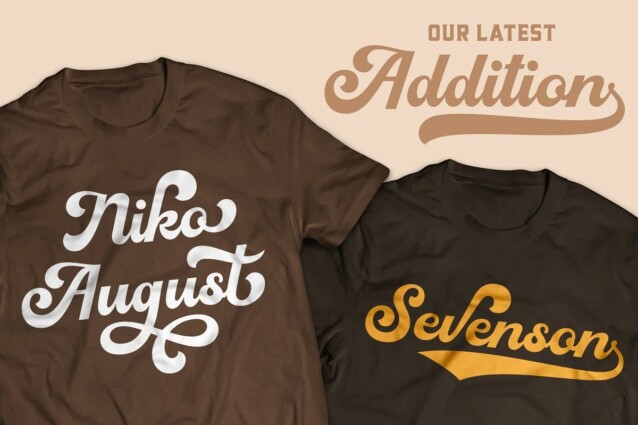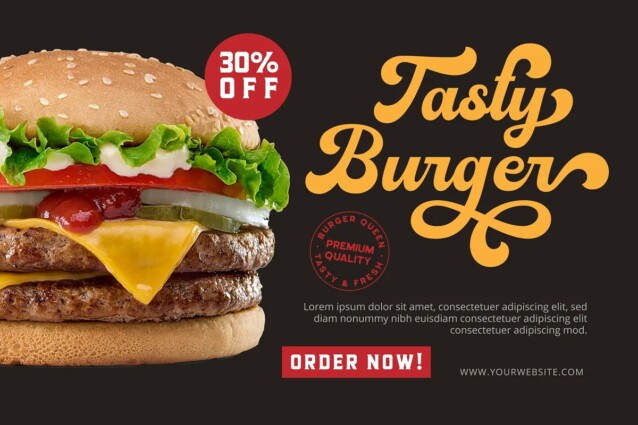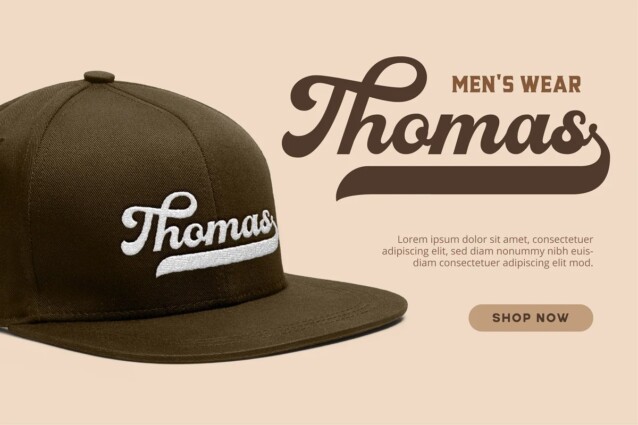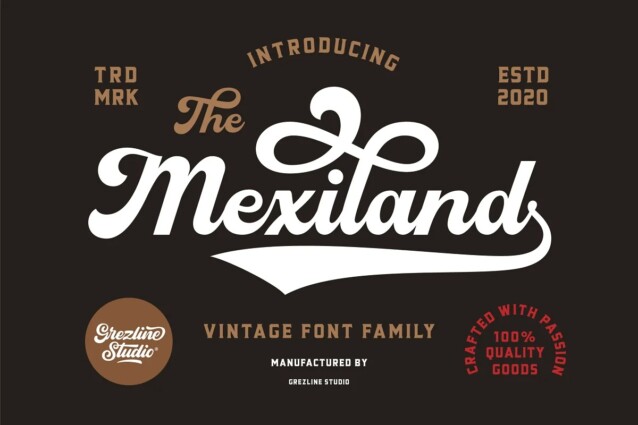
Mexiland Font is a script typeface that effortlessly channels the retro vibe, oozing with an irresistible charm that takes you back to a bygone era. Mexiland is perfect use for a logotype, typography design, product packaging, quotes, t-shirt design, label poster, headings, letterhead, cutting sticker, hot stamping, signage, and anything that need vintage vibe.